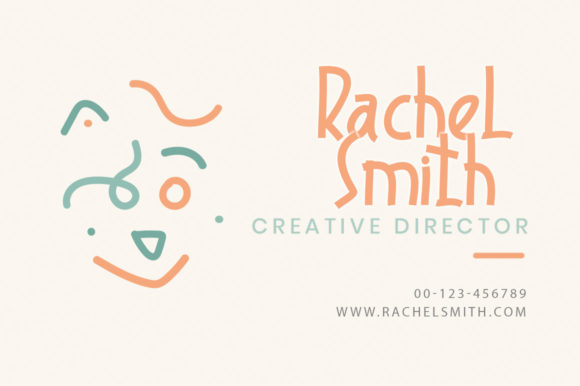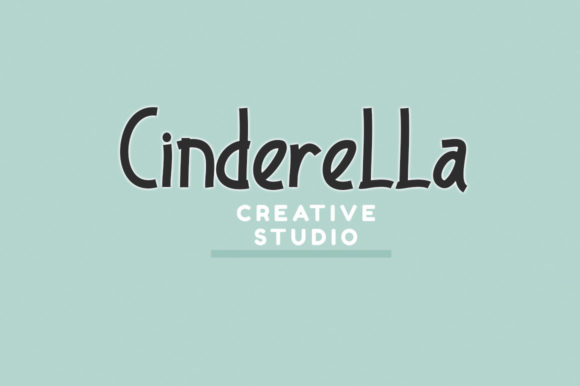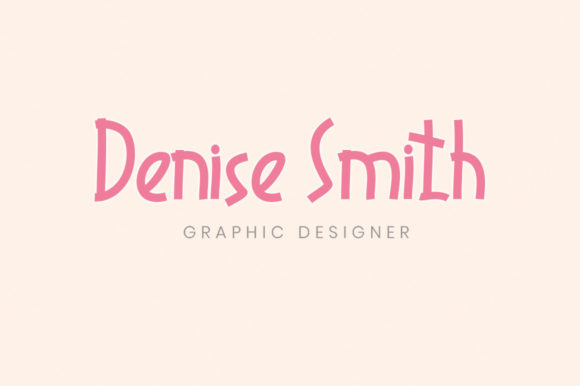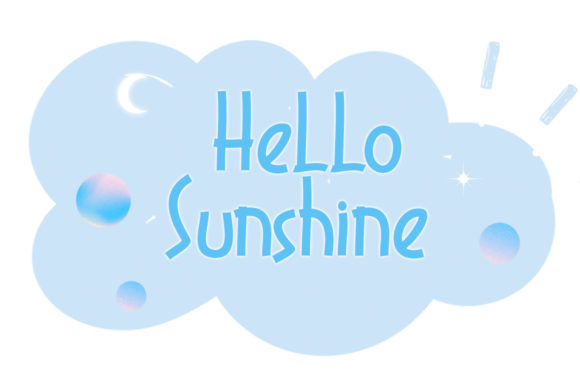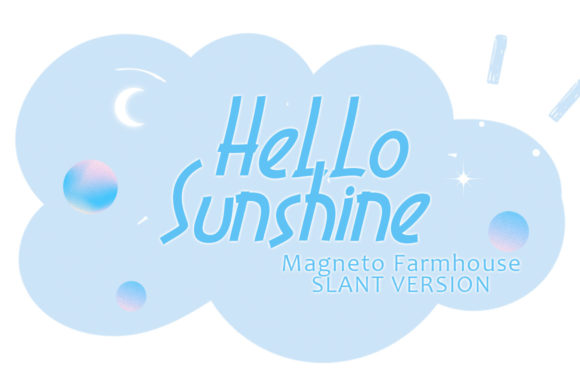
Magneto Farmhouse Font
About Magneto Farmhouse Font
Magneto Farmhouse is a very unique, fresh and modern handwritten font. It is perfect for title designs such as clothing, invitations, book titles, stationery designs, quotes, branding, logos, greeting cards, T-shirts, packaging designs, posters and more.